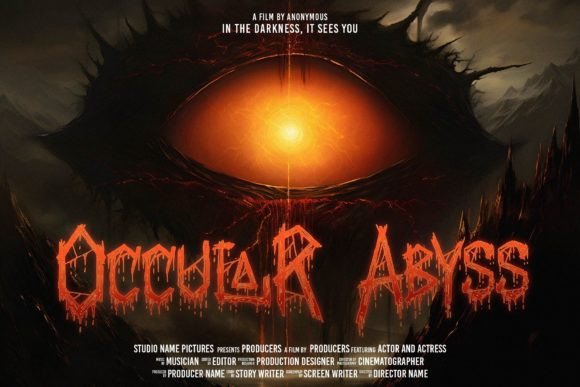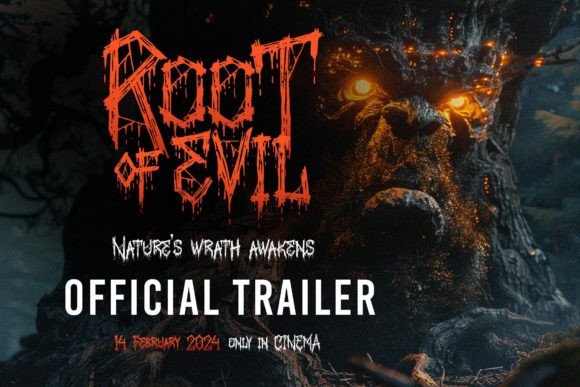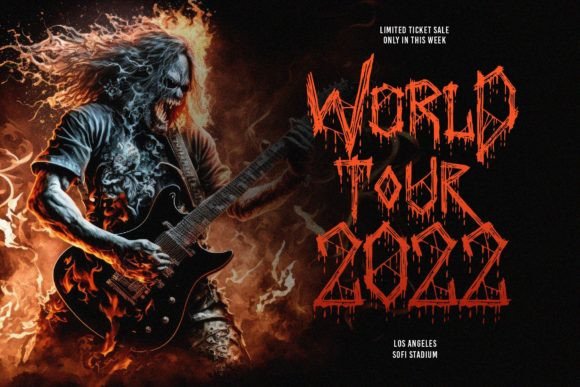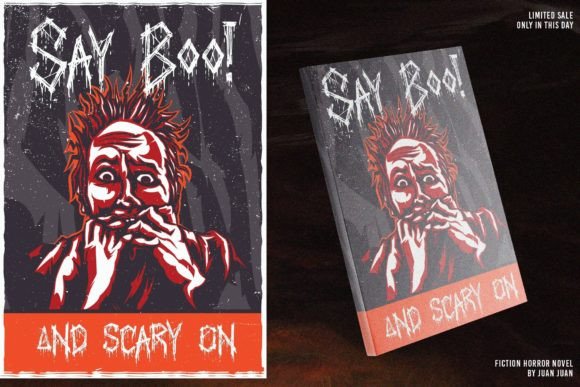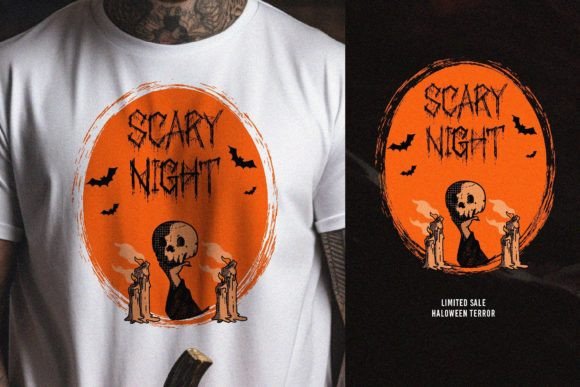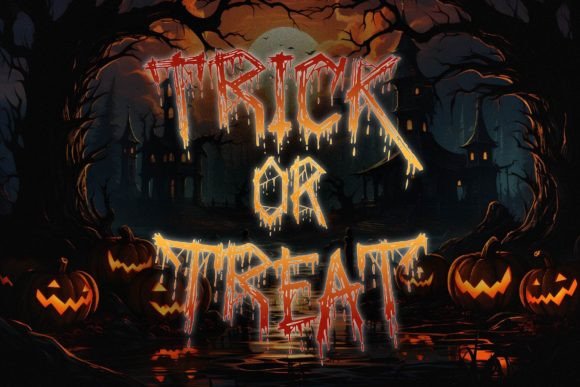
Unleashing the Darkness: The Eternal Torment Font
Have you ever found yourself huddled in a dimly lit room, surrounded by flickering candles and an eerie silence, as the wind howls outside? That’s exactly the atmosphere you’ll want to evoke when designing a Halloween party invitation or a horror-themed project. And what better way to set the tone than with the perfect font?
Enter the “Eternal Torment Font”, a spine-tingling, blackletter style font that’s sure to send shivers down your spine. Its sharp, gothic letters are designed to add a touch of eeriness to your designs, making it the perfect tool for designers looking to create a haunting ambiance.
With its unique, unsettling style, the Eternal Torment Font is a valuable addition to any designer’s toolkit. Whether you’re creating a spooky website, a creepy comic book, or a haunting Halloween party invitation, this font is sure to bring your dark creations to life.
Eternal Torment Font Key Features
- Font Style: A horror-themed, sans-serif font with a distressed and worn appearance.
- Unique Characteristics: Distressed texture, worn edges, and a haunting atmosphere make this font perfect for horror-themed designs, such as book covers, movie titles, and dark fantasy art.
Eternal Torment Font Review
As a designer, I was excited to try out the Eternal Torment Font, a mysterious and ominous font that promises to add an air of darkness to any design project. After putting it through its paces, here’s my honest review.
- The font’s unique, gothic-inspired design is sure to grab attention. It’s perfect for horror-themed projects, fantasy games, or even metal music promotions.
- The font’s bold, dramatic lines make it a great choice for headlines and titles, where you want to create a sense of drama and tension.
- The font is highly customizable, with a wide range of weights and styles available. This makes it easy to create a cohesive look for your design project.
Limitsations ⚠️
- The font can be a bit overwhelming if used in large blocks of text. The dramatic lines and bold typography can be tiring to read if used extensively.
- The font may not be suitable for all design projects, particularly those that require a more lighthearted or playful tone.
Overall, I think the Eternal Torment Font is a great addition to any designer’s toolkit. While it may have some limitations, its unique design and high level of customization make it a valuable resource for designers looking to add a touch of darkness to their projects.